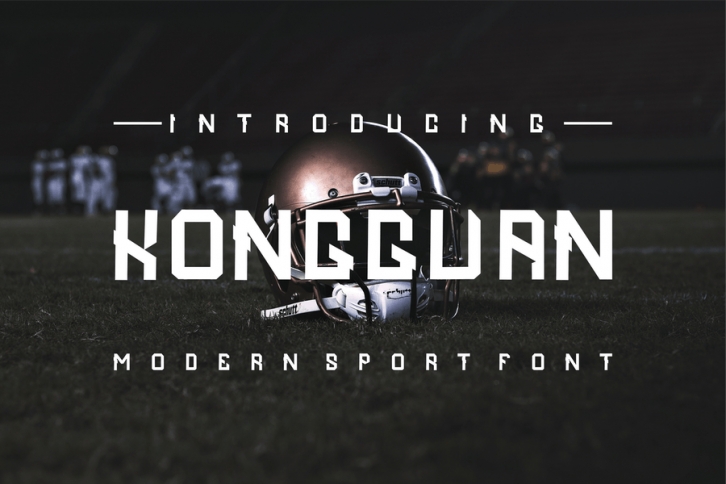
Introduce our new collection, KONGGUAN - Awesome Modern Sport Font, Sport Style and have very strong characteristics, KONGGUAN font with strong and challenging nuances. very suitable for the title, typography, Poster, magazines, brochures, packaging,Websites and much more for your design needs, making your designs more modern and professional.